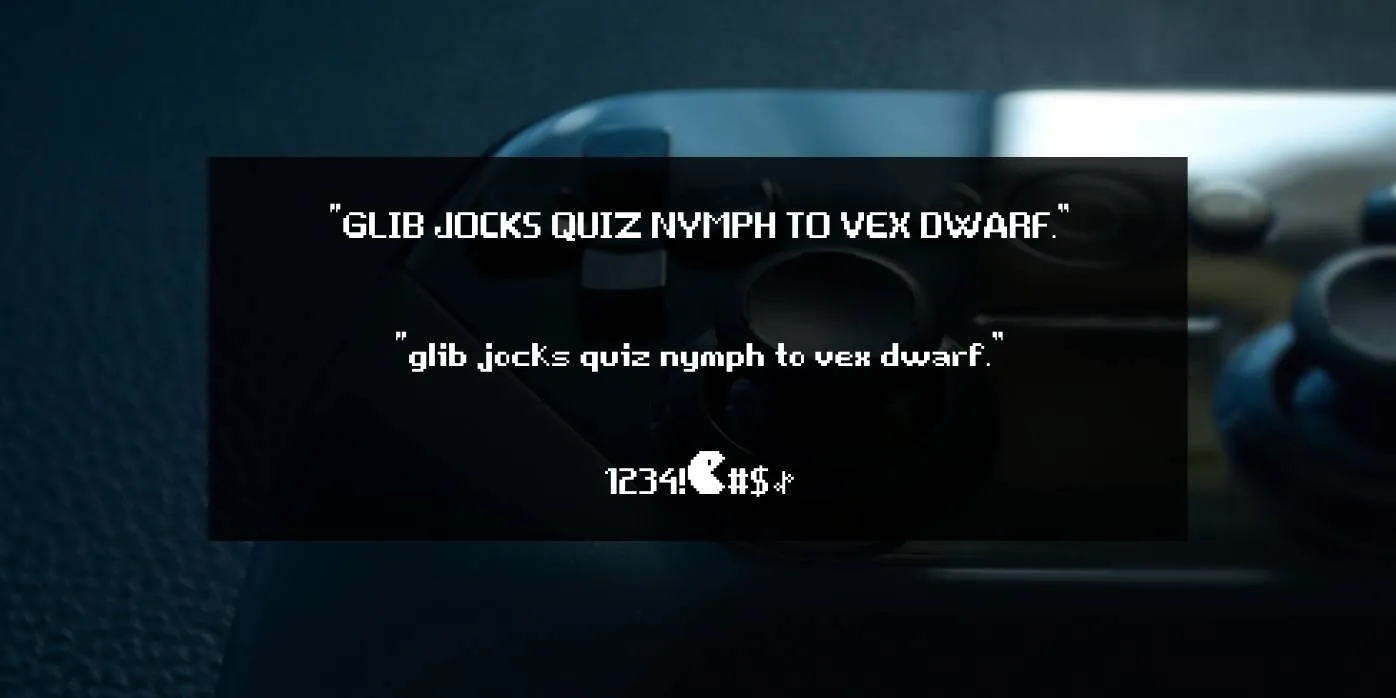
Game Over Font
Today, we are consulting on a very famous typeface named Game Over Font. This classy typeface was developed by Pedro Munoz Pastor. It belongs to the techno typeface. This font was released on June 27, 2016.
Game Over Font consists of two different styles including regular and alternative styles. Each style has 469 glyphs as well as 2048 units per em. This techno typeface has unique features including elegant shapes, stylish looks, and amazing texture. All of these features make it perfect for different design purposes.